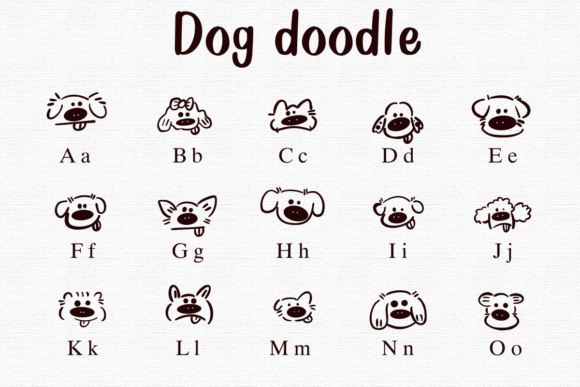
Dog Doodle Font
Dog Doodle is a fun dingbat font featuring a cute dog’s face. The design is playful and whimsical, making it perfect for adding a cheerful touch to your projects. Each character shows a friendly dog expression, bringing smiles and joy to your designs!